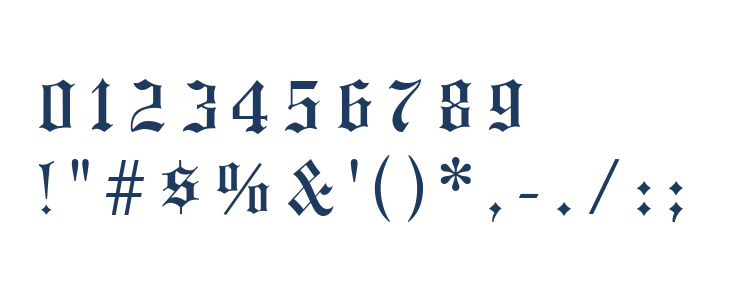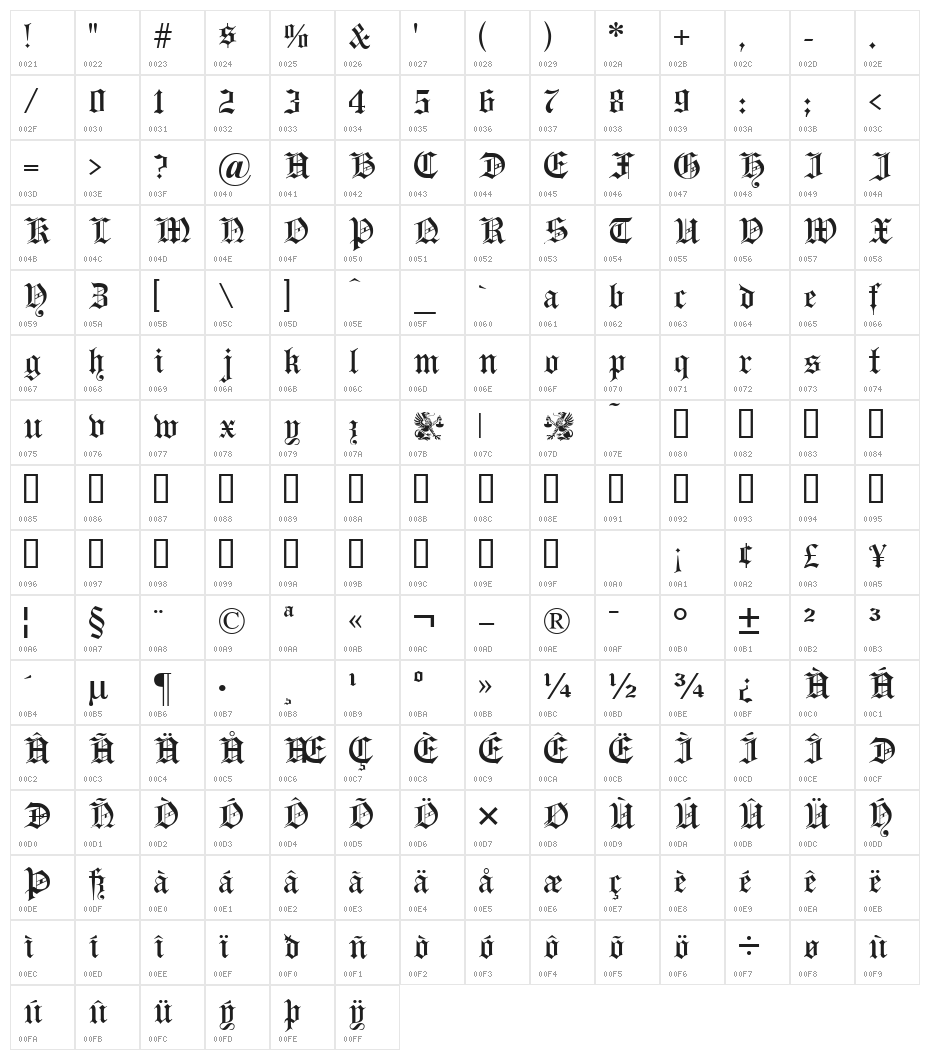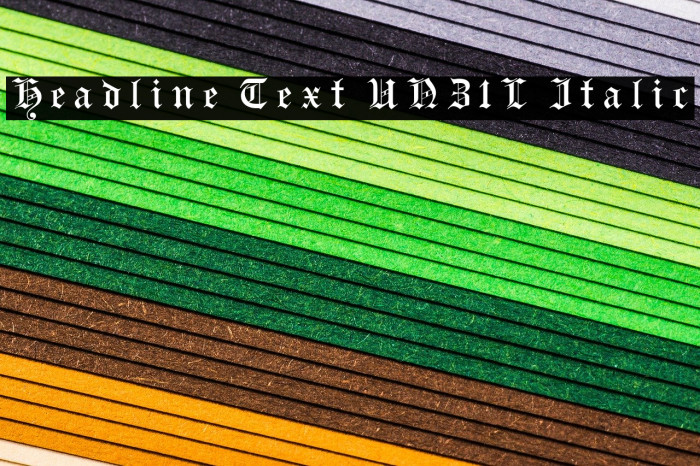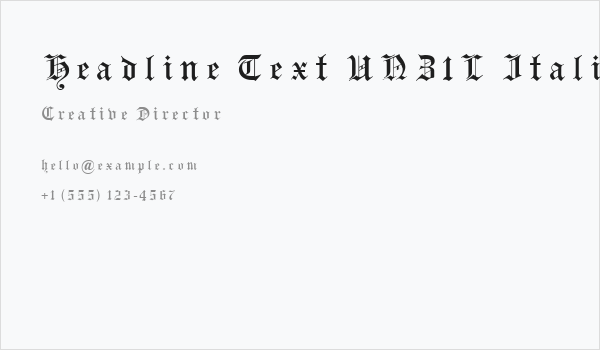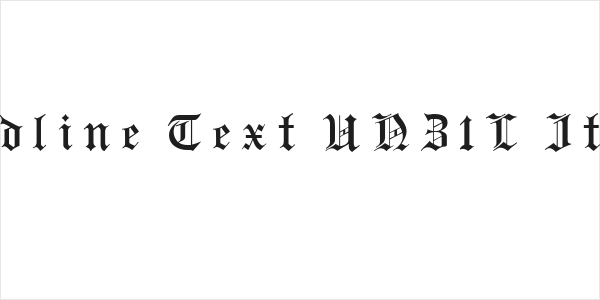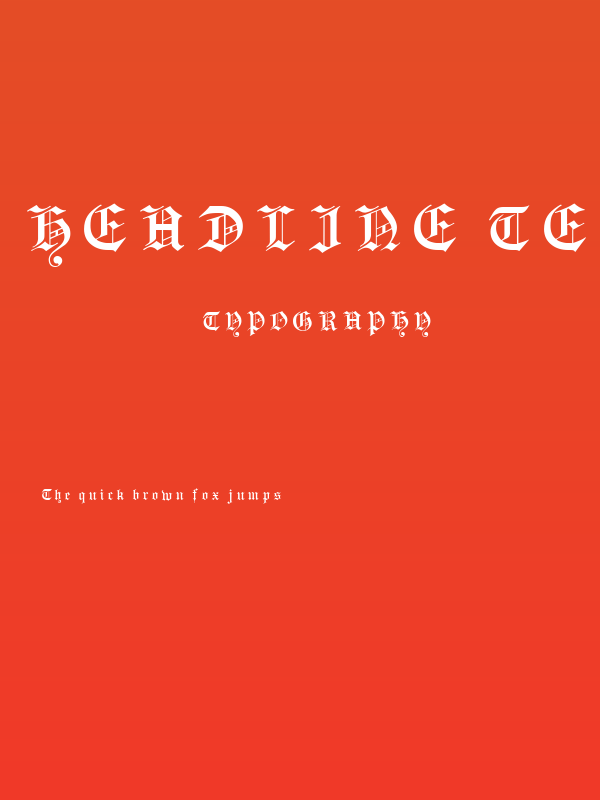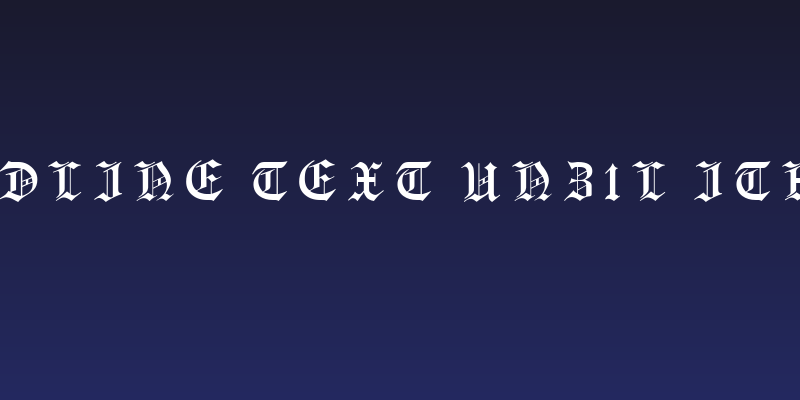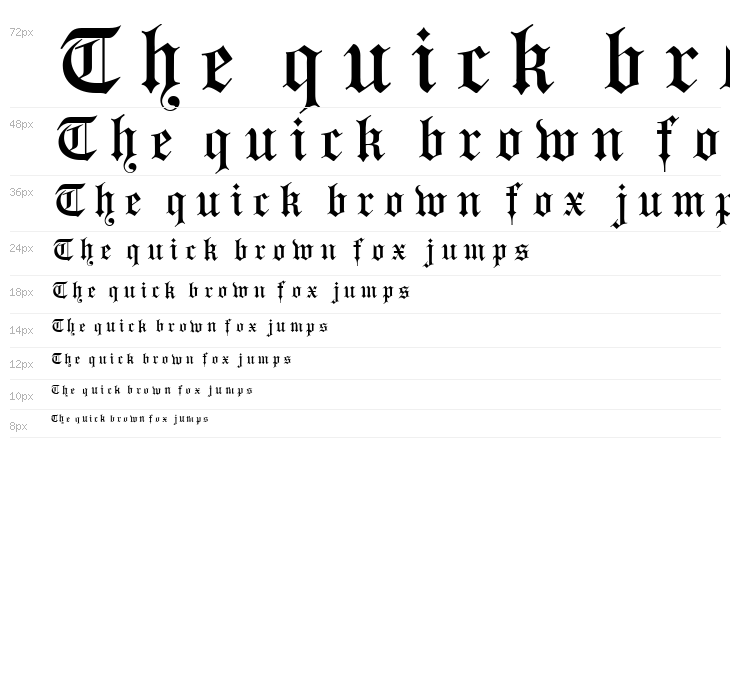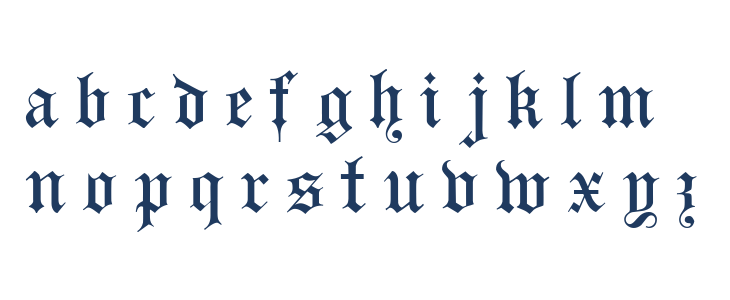
Headline Text UNZ1L Italic Font
Headline Text UNZ1L Italic Description
This font embodies the traditional elegance of blackletter typefaces, characterized by its intricate and ornate design. The letters feature sharp, angular lines with dramatic strokes, creating a sense of historical depth and formality. Each character is meticulously crafted with a high level of detail, showcasing the classic Gothic style. The uppercase letters are bold and commanding, while the lowercase letters maintain a consistent flow, enhancing readability. The numbers and special characters are designed to complement the overall aesthetic, maintaining the same level of intricacy and style. This font is perfect for projects that require a touch of medieval or vintage flair, offering a unique and eye-catching appearance.
| Proposed Projects | Ideal for historical documents, vintage posters, book covers, and branding that requires a medieval touch. |